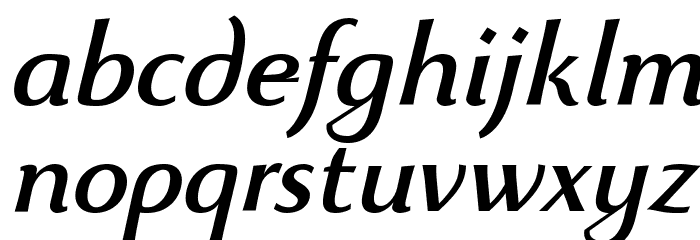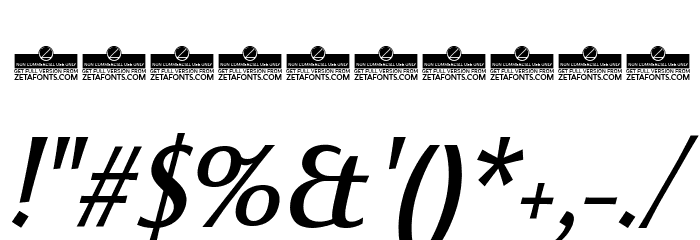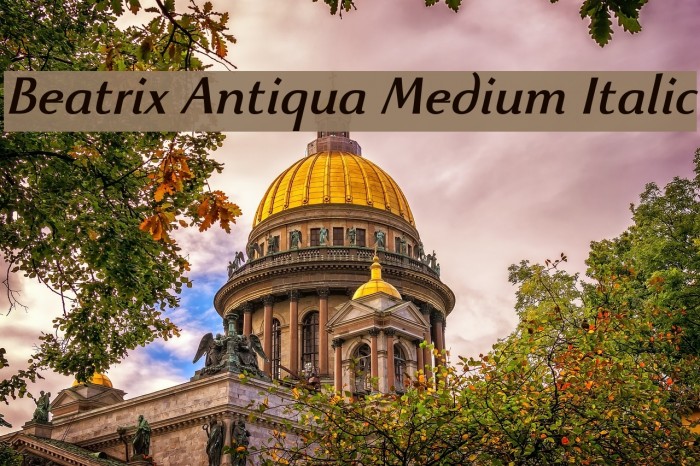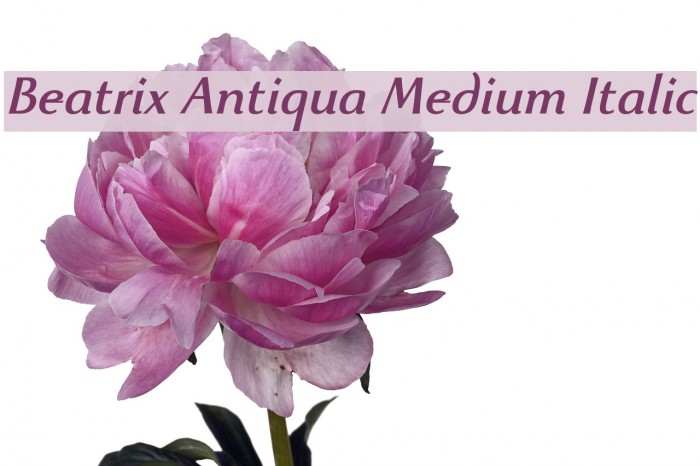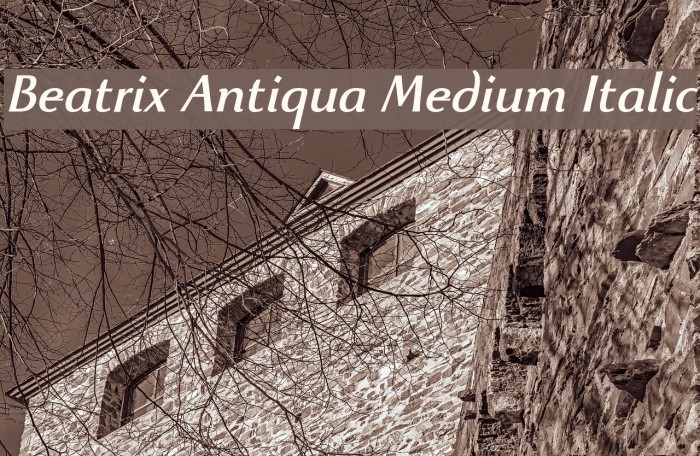
Beatrix Antiqua Medium Italic Font
This font exhibits a classic and elegant style with a medium weight and italicized form. The characters are gracefully slanted, adding a sense of motion and sophistication. The serifs are subtle yet distinct, contributing to a refined appearance. The uppercase letters are tall and commanding, while the lowercase letters maintain a consistent flow with smooth curves and balanced proportions. The numerals are clear and legible, matching the overall aesthetic. Special characters are well-integrated, maintaining the font's cohesive look. This font is suitable for projects that require a touch of elegance and tradition.
A classic, medium-weight italic serif font with elegant curves and subtle serifs.
- Proposed Projects: Ideal for formal invitations, elegant branding, editorial design, and classic book covers.
- Overall Style: Classic